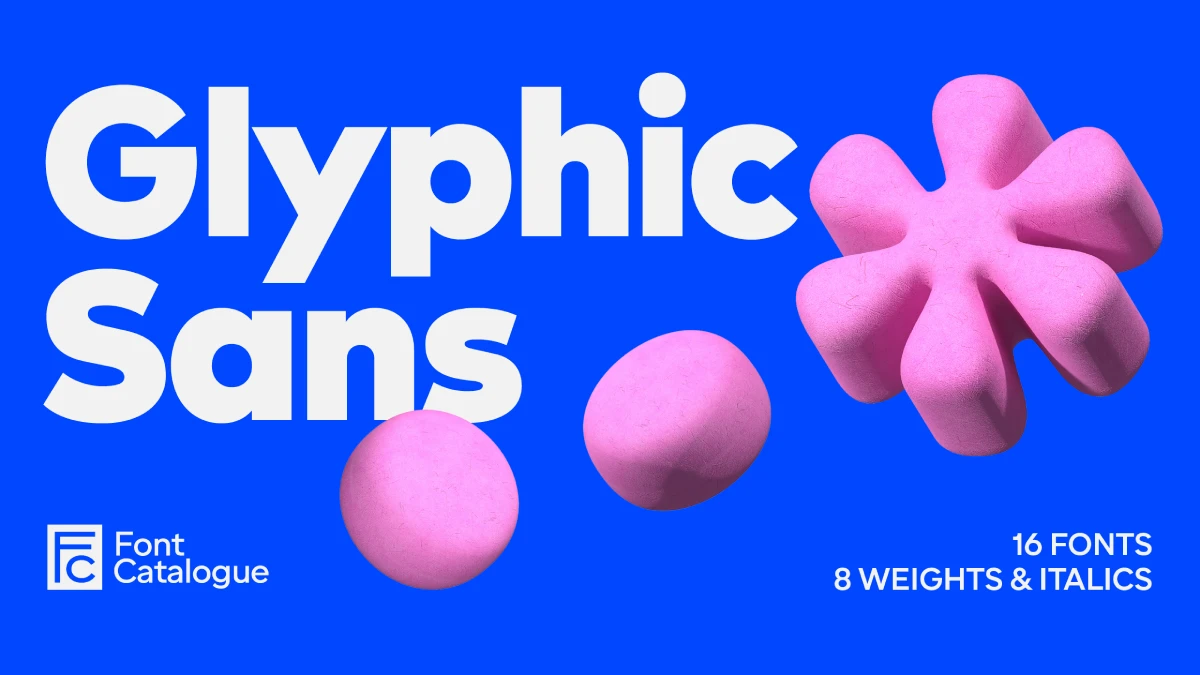
Discover the Glyphic Sans Typeface: A Human Voice in a Geometric World
A typeface must often choose a side. It can be geometric and precise, or it can be humanist and warm. The Glyphic Sans font family, however, argues that this doesn’t have to be a choice. It presents a compelling third option. This typeface stands at the intersection of technology and humanity. Consequently, it offers a solution for brands that need to communicate with both clarity and character. For industries like fintech, banking, and tech, where trust is paramount, Glyphic Sans provides a visual language that feels both innovative and deeply reliable. It moves beyond sterile perfection, introducing a subtle warmth that connects with people.
This font is not an accident. Instead, it is a deliberate and thoughtful creation. It understands the modern need for a typeface that performs flawlessly on screens. Yet, it never forgets the human being on the other side of that screen. Its balanced design makes it a truly contemporary and essential tool for today’s designers.
Deconstructing the Character of Glyphic Sans
What gives a typeface its soul? Is it the mathematical precision of its lines or the subtle imperfections that give it life? For Glyphic Sans, the answer is both. It builds its identity on a foundation of clean geometry. Then, it layers in humanistic details that transform it from a mere tool into a powerful communication partner.
A Foundation of Clean Geometry
The core structure of Glyphic Sans is undeniably geometric. Its proportions are balanced and modern. This creates an immediate sense of order and professionalism. The clean lines and consistent letterforms ensure high legibility across all digital platforms. Therefore, it is a natural fit for user interfaces and complex data displays. This geometric precision communicates competence and technological prowess. It tells the user that the brand is efficient, secure, and forward-thinking.
Whispers of Humanism
Where Glyphic Sans truly distinguishes itself is in its subtle departures from rigid geometry. Look closely, and you will find elegant, humanistic touches. The extended strokes and graceful diagonals on characters like the ‘K’, ‘Q’, ‘y’, and ‘k’ are perfect examples. These details soften the font’s overall impression. They add a touch of personality that prevents it from feeling cold or impersonal. This is where the font’s true authority comes from—it has confidence without arrogance and elegance without affectation.
The Strategic Advantage for Modern Brands
Choosing a font is a strategic business decision. The right typeface can build trust, convey values, and create a lasting impression. Glyphic Sans offers a distinct advantage for brands that need to navigate the complexities of the modern digital landscape. Its unique blend of traits makes it a powerful asset.
The Go-To Typeface for Tech and Fintech
Why has Glyphic Sans become such a compelling choice for the technology and finance sectors? These industries must project unwavering security and constant innovation. The font’s solid, geometric base provides a sense of stability and trust. Meanwhile, its humanistic details signal a brand that is approachable and user-focused. This duality allows companies to appear both authoritative and accessible. Ultimately, this balance helps build strong customer relationships based on confidence.
Versatility Beyond the Logo
While it excels in creating memorable wordmarks, the font’s utility extends far beyond logos. The family includes eight distinct weights, from a delicate Thin to a commanding Black. This extensive range gives you, the designer, complete control over visual hierarchy. The heavier weights create impactful headlines that demand attention. The middle weights are optimized for readability in long-form text. The lighter weights, in contrast, are perfect for secondary information like captions and metadata. This adaptability ensures a consistent and professional brand expression across all materials.
A Practical Guide to Designing with Glyphic Sans
A great typeface is like a finely tuned instrument. To get the best results, you need to understand how to use it effectively. How can you integrate Glyphic Sans into your designs to maximize its impact?
Establishing a Clear Hierarchy
Effective design depends on a clear visual hierarchy. Glyphic Sans makes this easy.
- Headlines: Use the Black or ExtraBold weights for your main headlines. Their strong presence will anchor your design and draw the reader in immediately.
- Subheadings: The Bold or Medium weights work perfectly for subheadings. They create a clear distinction from the body text without overpowering it.
- Body Text: For longer passages, the Regular weight offers excellent readability. It maintains a comfortable rhythm that makes reading effortless.
Finding the Perfect Typographic Partner
Glyphic Sans is a strong performer on its own. However, it also pairs wonderfully with other typefaces. For a sophisticated and classic combination, try pairing it with a serif font. The contrast between the clean, modern lines of Glyphic Sans and the traditional elegance of a serif can be incredibly effective. Look for a serif with compatible x-heights and proportions to ensure the two fonts feel like they belong together.
As a designer, I find myself drawn to typefaces that tell a story. Glyphic Sans tells a story of balance. It speaks of a world where technology and humanity are not in opposition but in harmony. Furthermore, it has a quiet confidence that I find incredibly appealing, and it doesn’t need to shout to be heard. Its clarity and thoughtful details speak volumes. This makes it not just a font, but a perspective.